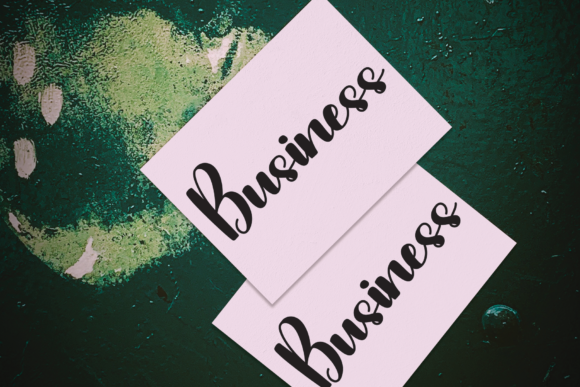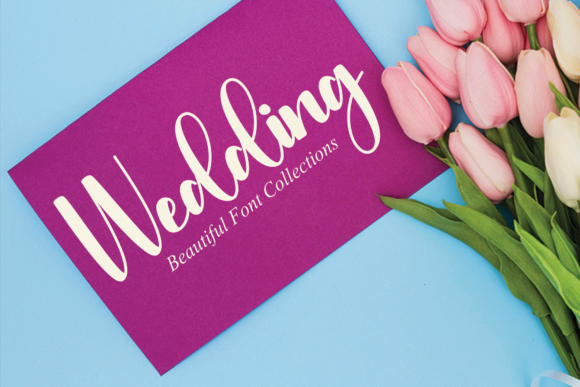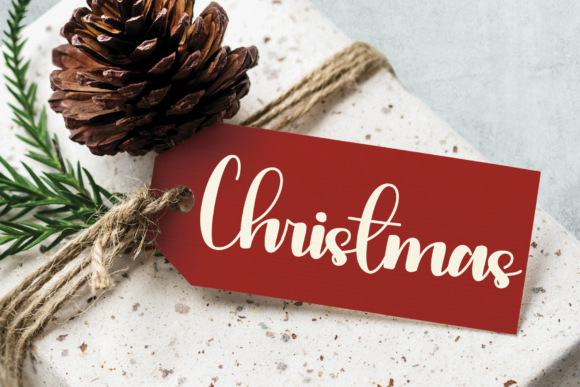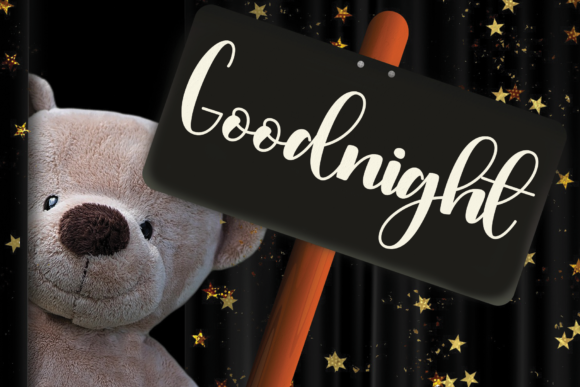
The Almond Font: A Beautiful and Flowing Handwritten Font for Your Creative Projects
I’ll never forget the moment I stumbled upon the Almond Font while working on a wedding invitation project for a dear friend. I had been searching for the perfect font for weeks, trying out various options, but nothing seemed to fit the elegant and whimsical vibe I was going for. That’s when I saw it – the Almond Font, with its beautiful, flowing handwritten letters that seemed to dance across the page. It was love at first sight! 💕
An Honest Review of Almond Font
- 💫 Beautiful, flowing handwritten letters that add a touch of elegance to any project
- ✅ Highly versatile and can be used for a wide range of projects, from wedding invitations to social media posts
- 🎨 Perfect for designers, crafters, and creative hobbyists who want to add a personal touch to their work
- 📸 Great for photography, watermarks, and product design
- ⚠️ Some users may find the font a bit too ornate for certain projects, such as body text or long-form content
- ⚠️ May not be suitable for very small font sizes, as some details may get lost
The Story Behind Almond Font
Almond Font was designed by a talented type designer who wanted to create a beautiful, flowing handwritten font that would add a touch of elegance to any project. Inspired by the curves and swirls of nature, Almond Font is a true masterpiece of typography.
| Is Almond Font suitable for body text? | While Almond Font is beautiful, it may not be the best choice for long-form body text. It’s better suited for headlines, titles, and short paragraphs. |